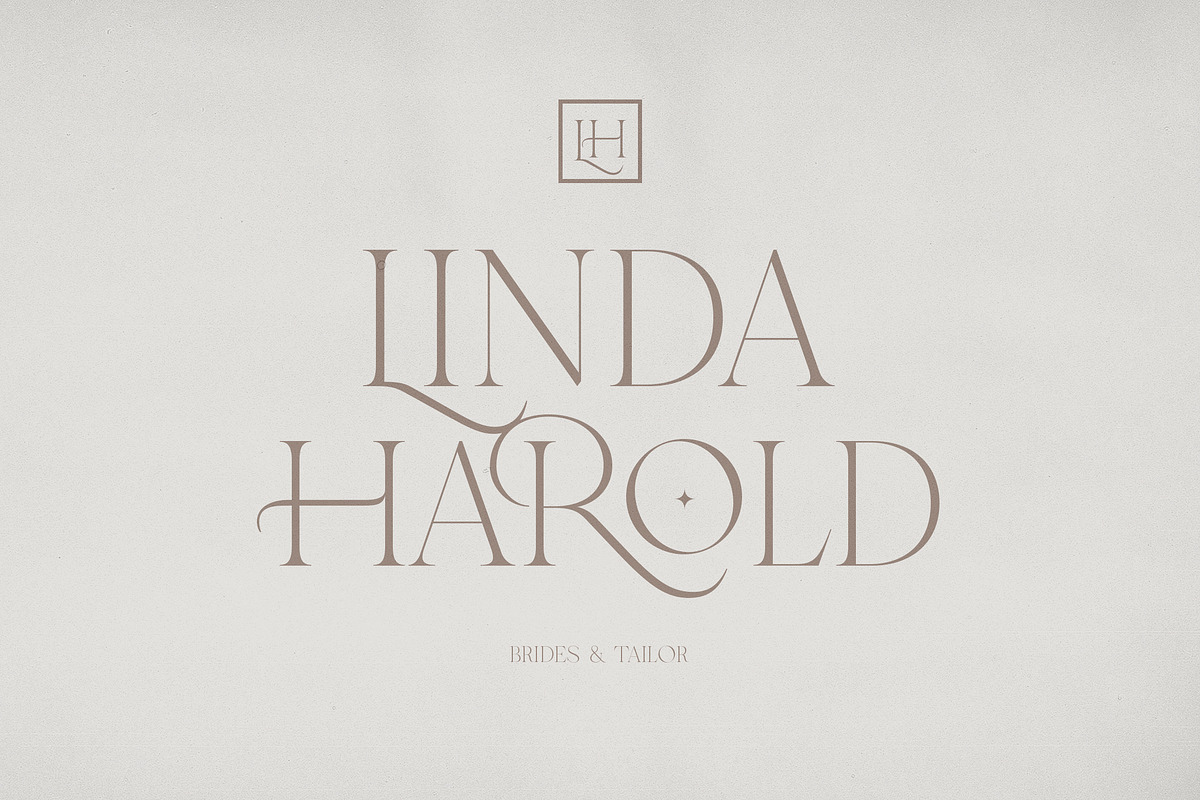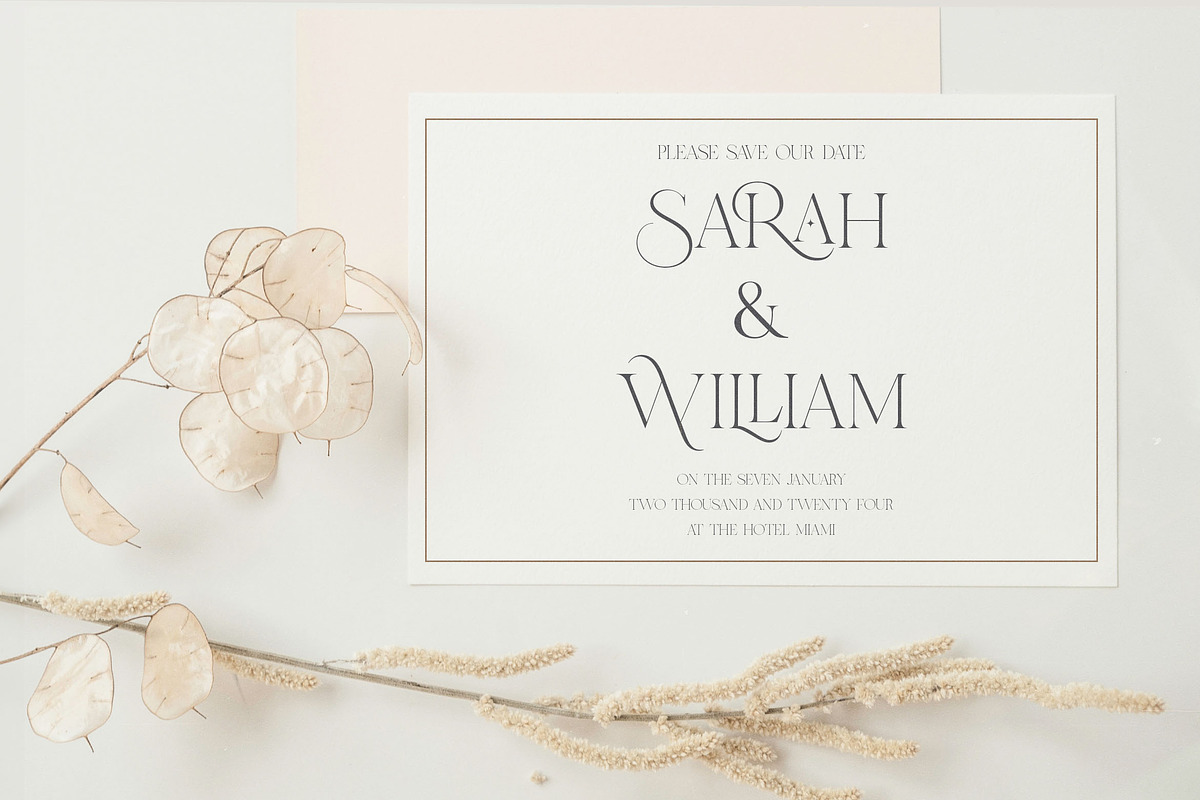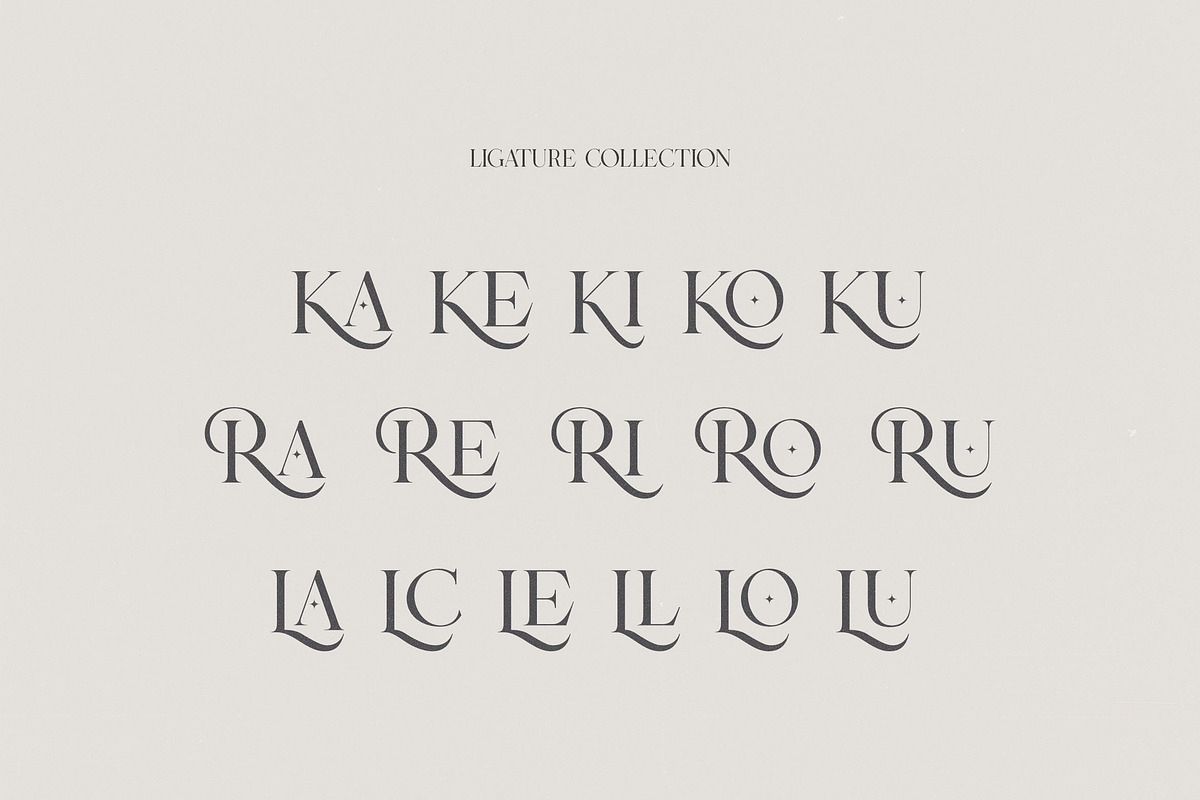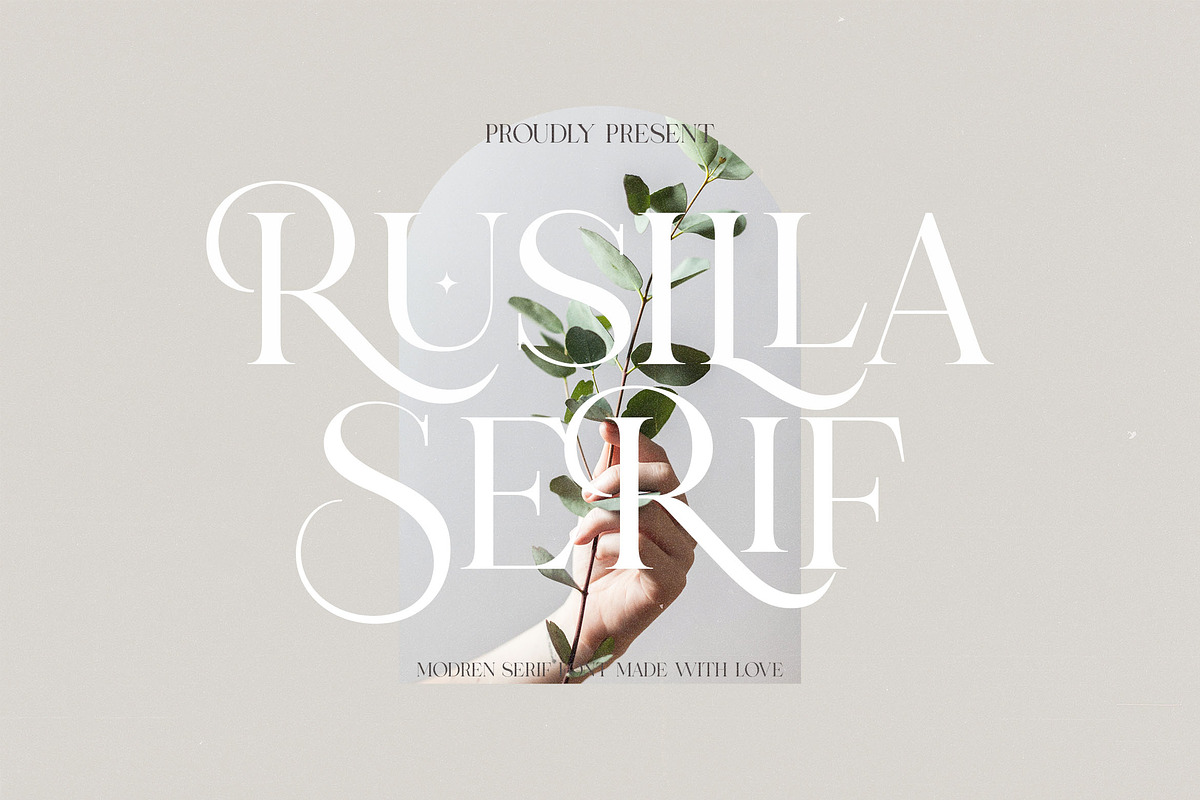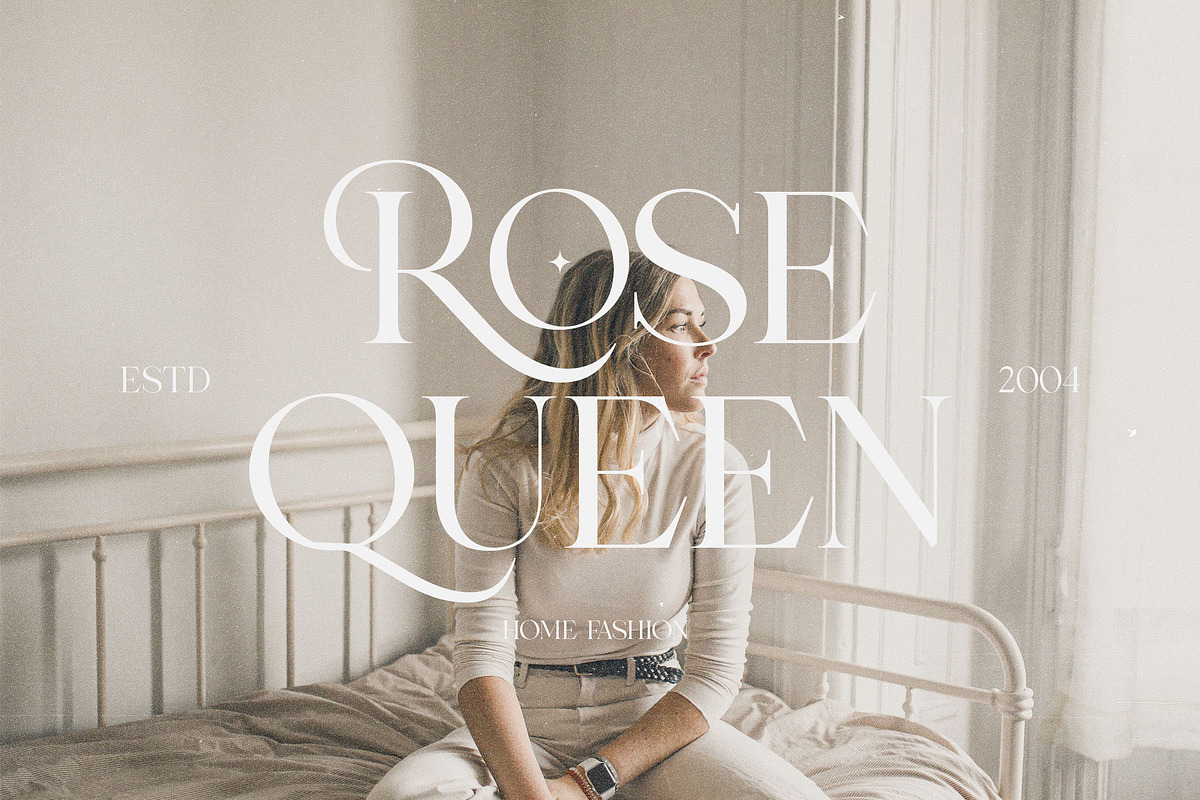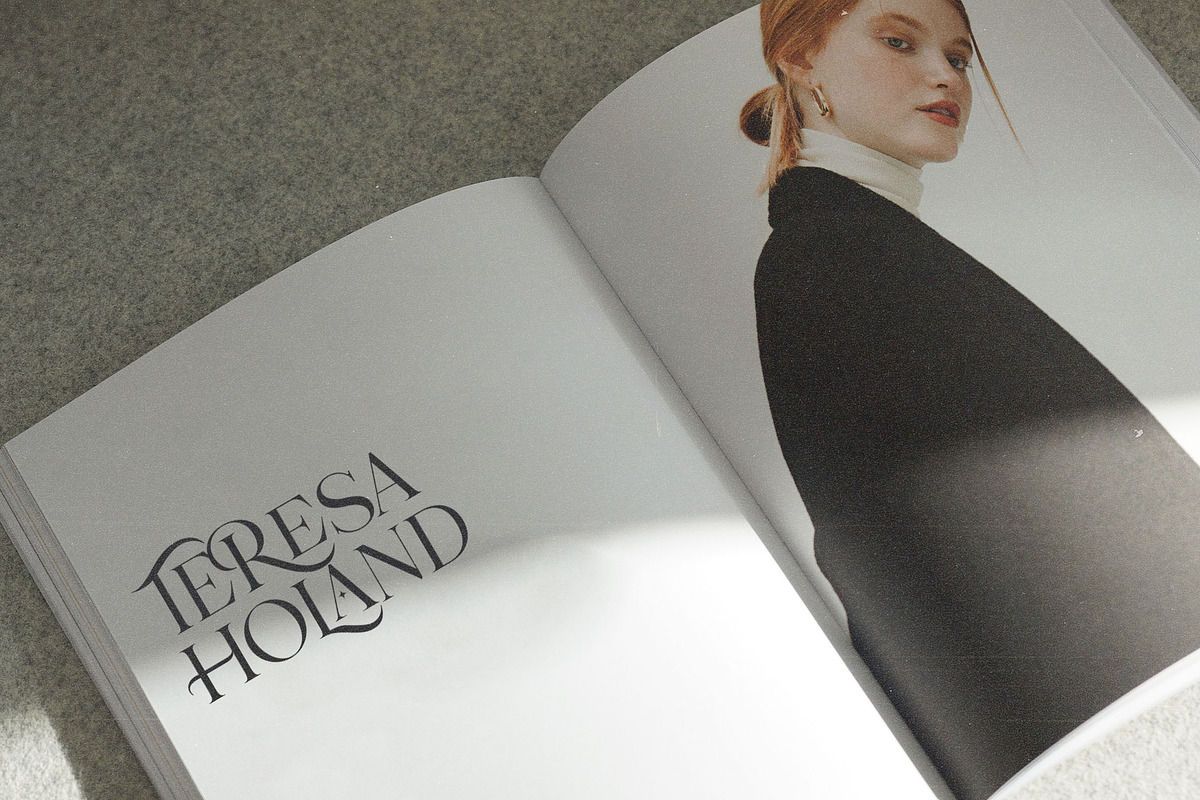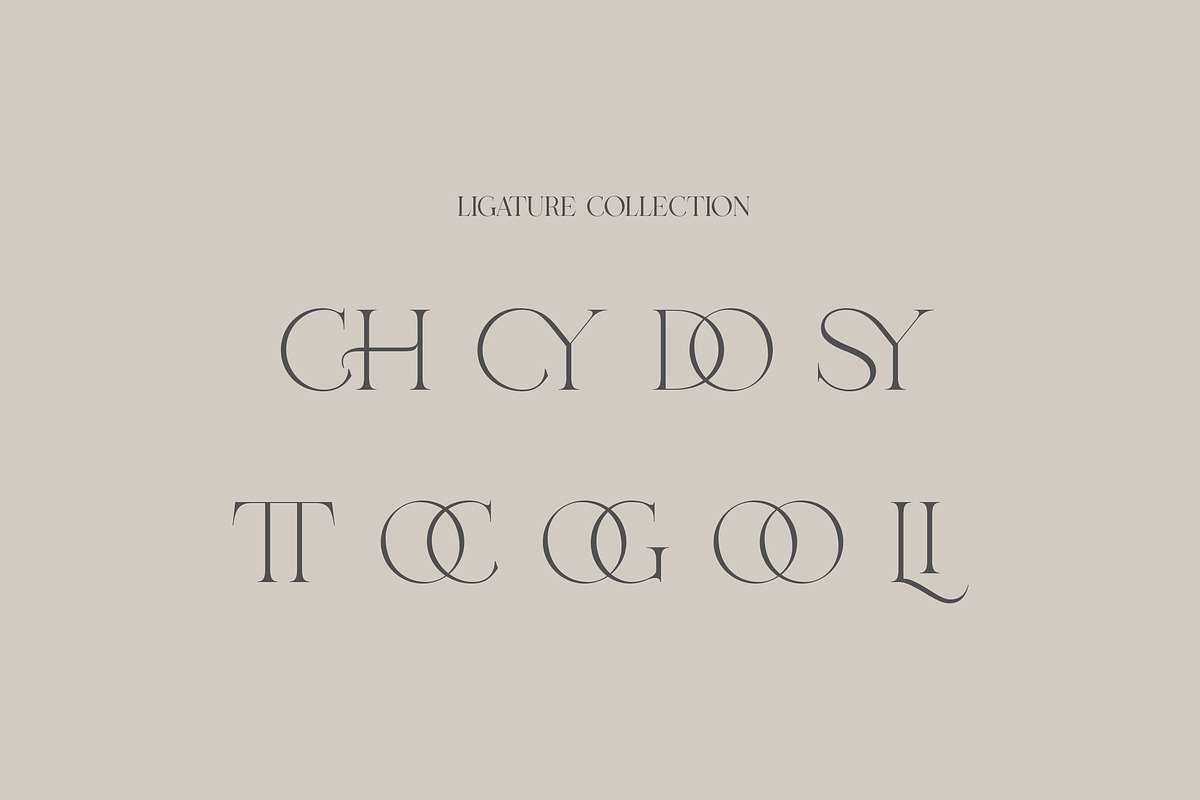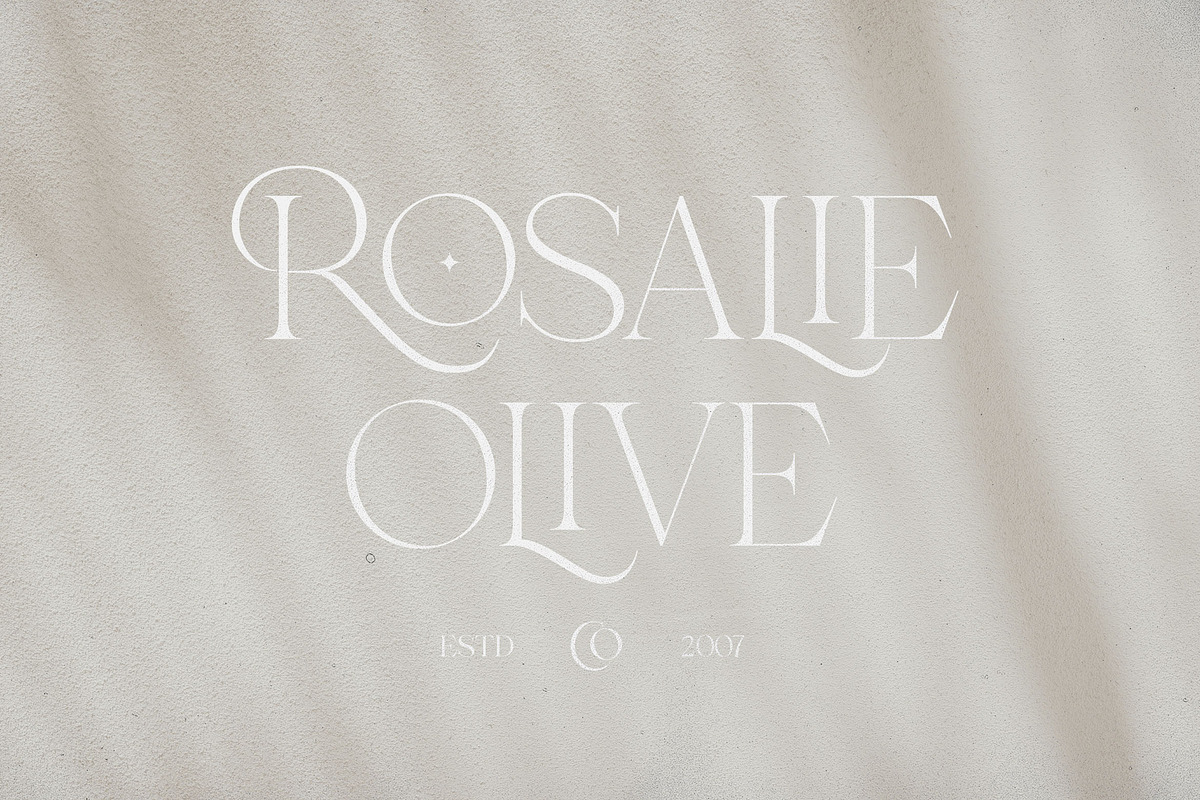
Rusilla Serif - Elegant Serif
Rusilla Serif is a sophisticated serif typeface. Perfectly to be applied to the other various formal forms such as invitations, labels, logos, magazines, books, greeting / wedding cards, packaging, fashion, make up, stationery, novels, labels or any type of advertising purpose.